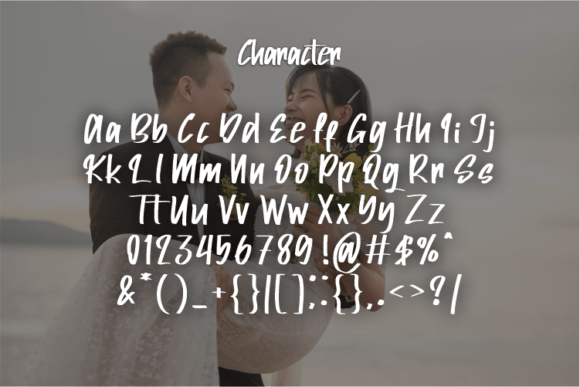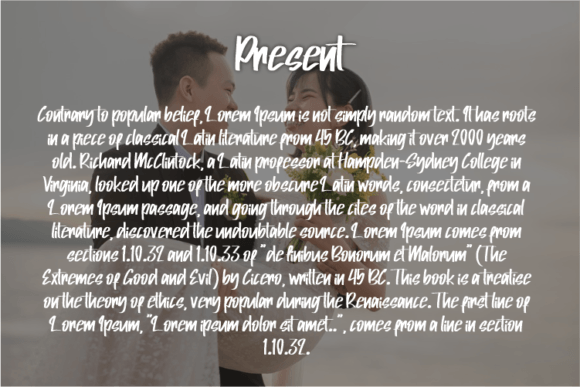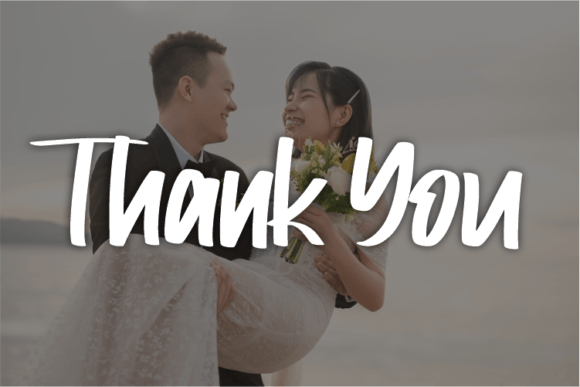
Introducing Adinda Font: The Epitome of Elegance and Luxury
In the realm of typography, few fonts manage to strike a balance between simplicity and sophistication. Adinda Font is one such marvel, a script typeface that boasts a simple yet modern aesthetic. This elegant font is designed to elevate your designs, making it perfect for luxurious logos, book or movie titles, fashion brands, magazines, clothing, and more.
The Characteristics of Adinda Font
Adinda Font is characterized by its clean lines, flowing curves, and a modern look that exudes elegance. Its simple style belies a depth of character that can add a touch of sophistication to any design project. The font’s versatility is one of its most compelling features, allowing it to be used across a wide range of applications.
Ideal Uses for Adinda Font
Given its luxurious and elegant appearance, Adinda Font finds its application in various design projects:
• Elegant Logos: Create a lasting impression with a logo that embodies luxury and sophistication.
• Book and Movie Titles: Add a touch of glamour to your book covers or movie posters.
• Fashion Brands: Perfect for branding that requires a modern yet classy look.
• Magazines: Elevate your magazine’s title or headings with a font that commands attention.
• Clothing: Ideal for labels or branding materials that need a stylish edge.
• Quotes and More: Use Adinda Font to give your quotes, sayings, or phrases a visually appealing look.
Why Choose Adinda Font?
There are several reasons why designers and crafters might prefer Adinda Font over other typefaces:
• Versatility: Its simple yet modern design makes it suitable for a wide array of projects.
• Elegance: The font adds a touch of luxury and sophistication to any design.
• Readability: Despite its elegant and cursive nature, Adinda Font maintains a high level of readability.
• Uniqueness: Stand out from the crowd with a font that is both modern and distinctive.
Tips for Using Adinda Font Effectively
To make the most out of Adinda Font, consider the following tips:
• Pair it Wisely: Combine Adinda Font with a sans-serif font for body text to create a balanced look.
• Play with Sizes: Use varying font sizes to create a hierarchy of information.
• Experiment with Colors: While Adinda Font looks great in black or dark colors, don’t hesitate to experiment with other colors that match your brand’s palette.
• Consider Letter Spacing: Adjusting the letter spacing can significantly impact the overall look of your design.
Adinda Font is more than just a typeface; it’s a design statement. Its blend of simplicity, modernity, and elegance makes it an invaluable asset for designers looking to infuse their projects with a touch of luxury. Whether you’re working on a logo, a fashion brand, or a movie title, Adinda Font offers the perfect combination of style and sophistication. Embrace Adinda Font for your next project and experience the transformative power of elegant typography.